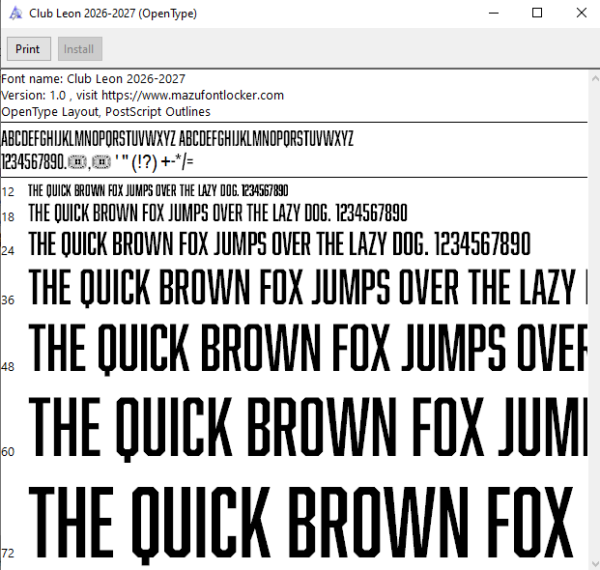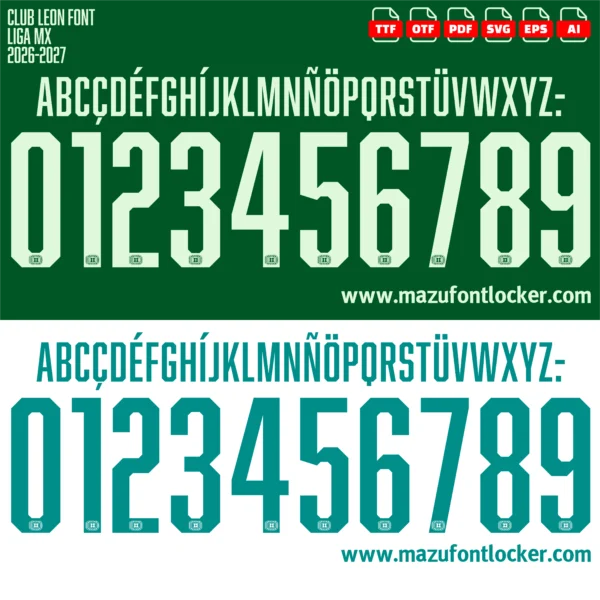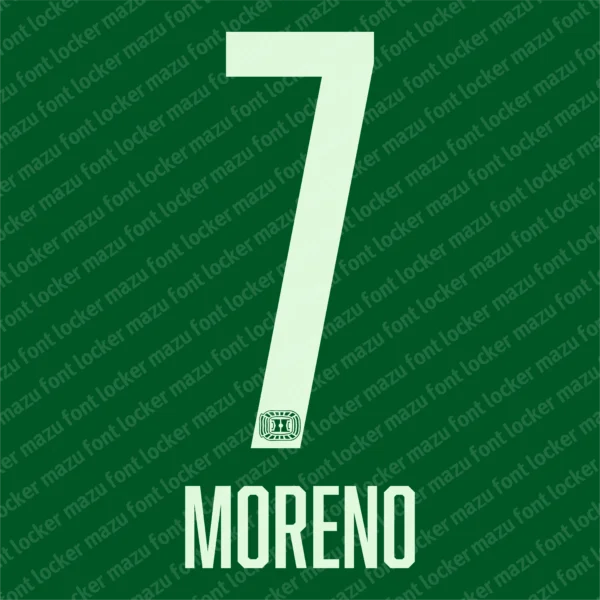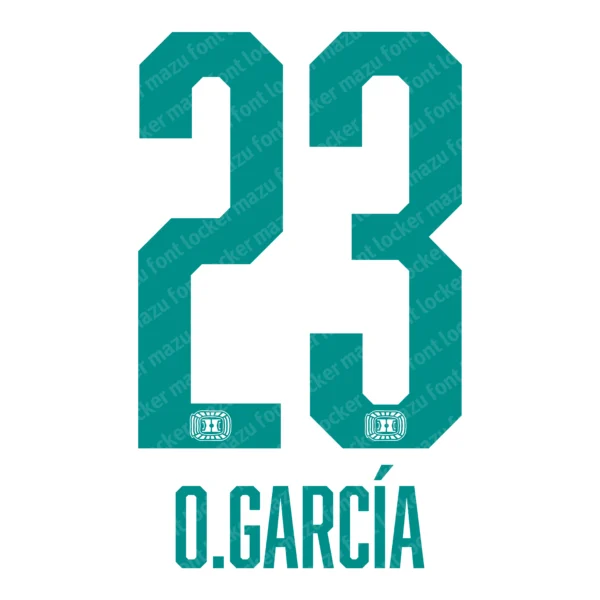
Club León 2026-2027 Font Vector – Stunning Esmeralda Masterpiece
Download the Club León 2026-2027 Font Vector (AI, EPS, SVG, PDF, OTF, TTF) and unleash the fierce, razor-sharp, thunderously relentless, and explosively wild match typography that defines Club León’s 2026-2027 campaign as they charge onto the pitch with iron will, unbreakable grit, fearless fighting spirit, and pure La Fiera mentality.
This font captures the commanding, emerald-edged, lightning-strike, and precision-engineered lettering that perfectly embodies Club León’s iconic club identity, proud Guanajuato heritage, legendary green-and-white tradition, roaring lion spirit, and unstoppable Mexican football power — delivering unmatched authenticity, premium quality, explosive energy, and elite Liga MX intensity for professional jersey mockups, dynamic football graphics, premium sports branding, passionate fan creations, and high-end design projects.
Club León 2026-2027 Font Vector – Stunning Emerald Green & White Typeface
The Club León 2026-2027 Font Vector is a premium typeface that accurately recreates the distinctive match lettering associated with Club León during the 2026-2027 football season. This high-quality vector font kit captures the bold, clean, and instantly recognizable typography that perfectly complements the club’s iconic emerald green and white identity.
Designed for professional designers, football enthusiasts, jersey collectors, and passionate Club León supporters, the Club León 2026-2027 Font Vector delivers exceptional authenticity for creating realistic jersey mockups, football merchandise, social media graphics, match posters, squad designs, and custom fan artwork. Every character has been carefully recreated to reflect the powerful and precise visual style of one of Mexico’s most traditional and passionate football clubs – La Fiera.
Why Choose Club León 2026-2027 Font Vector
This font stands out thanks to its precise vector construction and authentic club-inspired styling. Every letter and numeral has been meticulously recreated to match the distinctive football lettering aesthetic associated with Club León during the 2026-2027 season and its Liga MX campaigns.
Whether you’re producing professional football kit templates, custom jersey concepts, or eye-catching football content, the Club León 2026-2027 Font Vector delivers a genuine match-ready appearance inspired by the identity of Los Esmeraldas.
The lettering featured in the Club León 2026-2027 Font Vector combines clean geometric lines with bold modern proportions. The result is a premium and highly readable typeface that reflects Club León’s proud football heritage, iconic green and white colours, Guanajuato identity, and passionate fanbase known as La Fiera.
• Complete uppercase A–Z alphabet and numbers 0–9 in authentic Club León 2026-2027 inspired style
• Special Club León badge glyph – Press the “:” (Colon) key to insert the club badge
Wearing their iconic emerald green and white colours, Club León continue to represent a proud football tradition built on passion, community spirit, and a strong connection with supporters at Estadio León (Nou Camp) and around the world. The Club León 2026-2027 Font Vector is inspired by the distinctive football typography and visual identity associated with this campaign, making it an excellent choice for designers creating custom jersey concepts, football posters, squad graphics, matchday artwork, and fan-made projects. For official club information, news, team updates, fixtures, and match information, visit the official Club León website.
The Club León 2026-2027 Font Vector is an independently designed typeface package inspired by the official shirt lettering and visual identity associated with Club León during the 2026-2027 football season. It has been carefully recreated for football enthusiasts, graphic designers, collectors, jersey creators, and fans producing custom football concepts, digital artwork, and fan-made projects. Please note that this is a fan-made design resource and is not an official product of Club León, Liga MX, the Mexican Football Federation, or any associated organization.